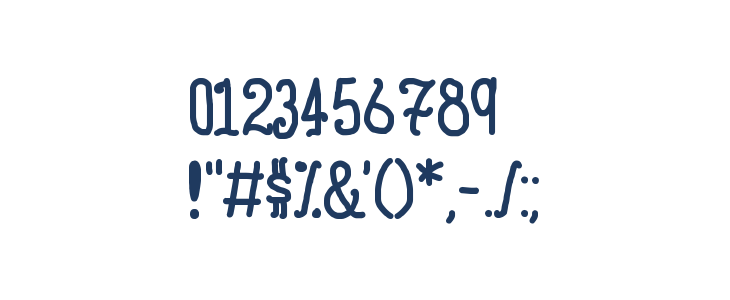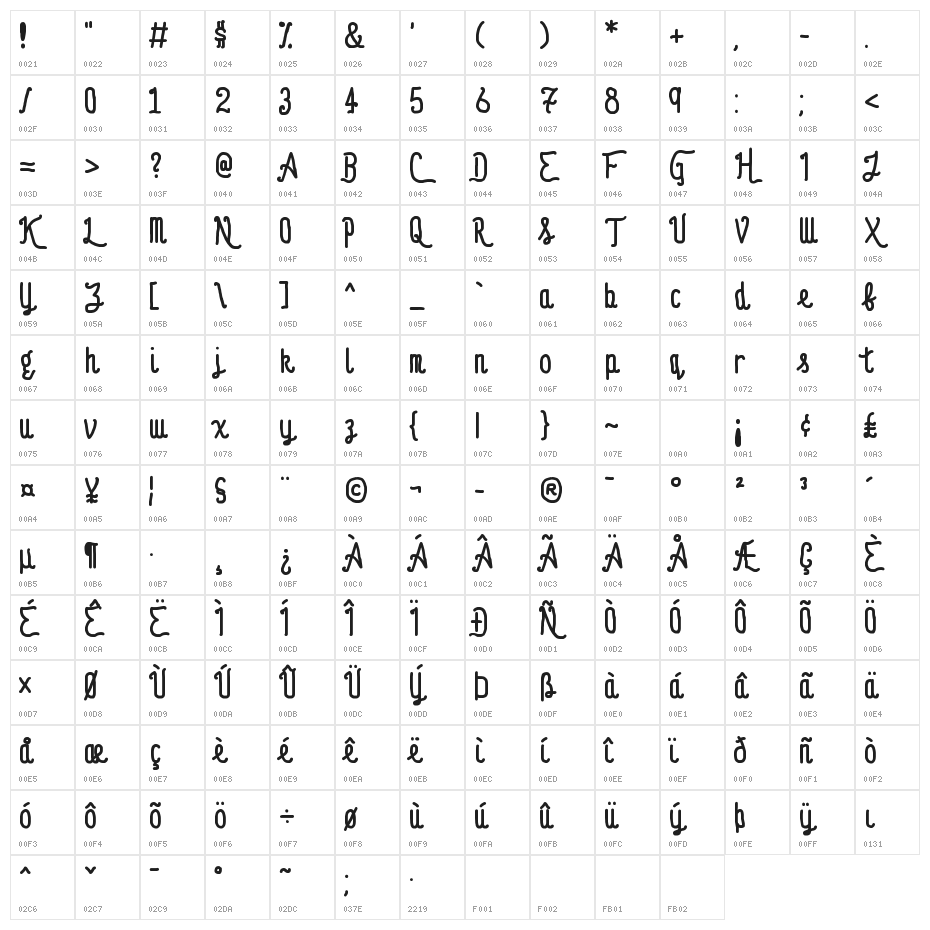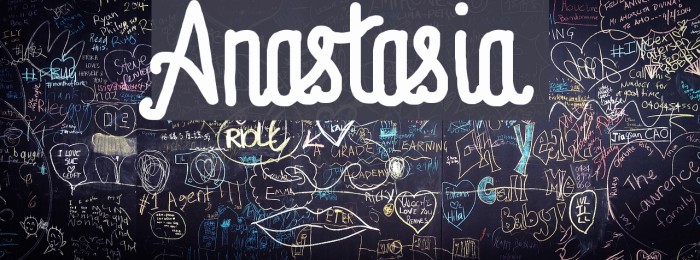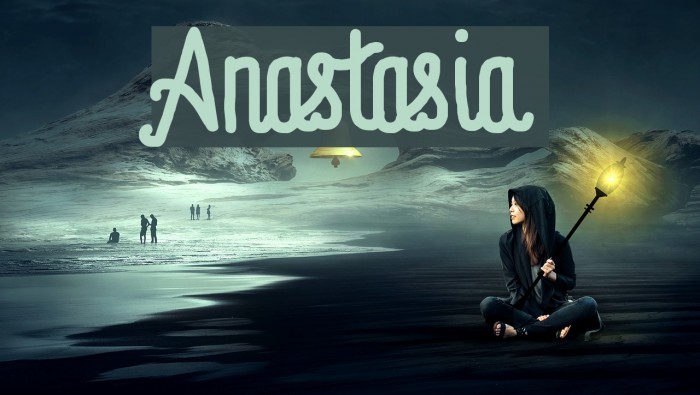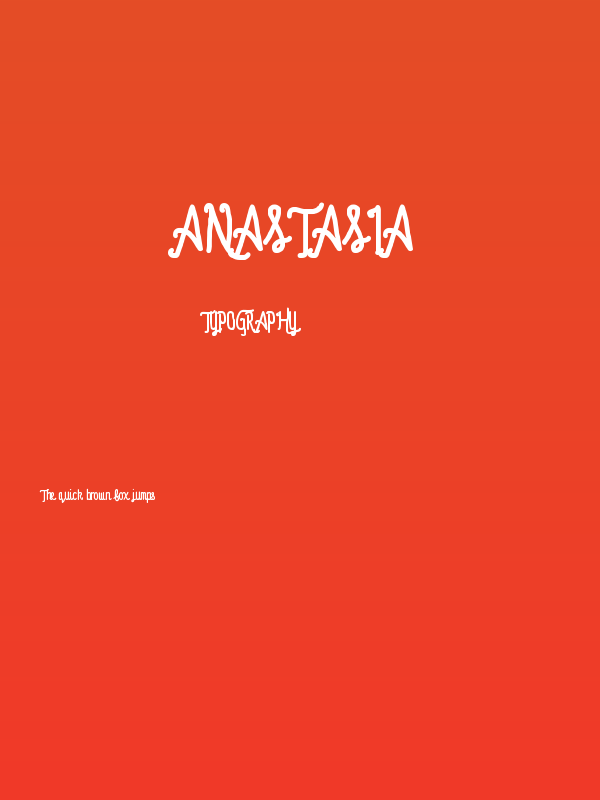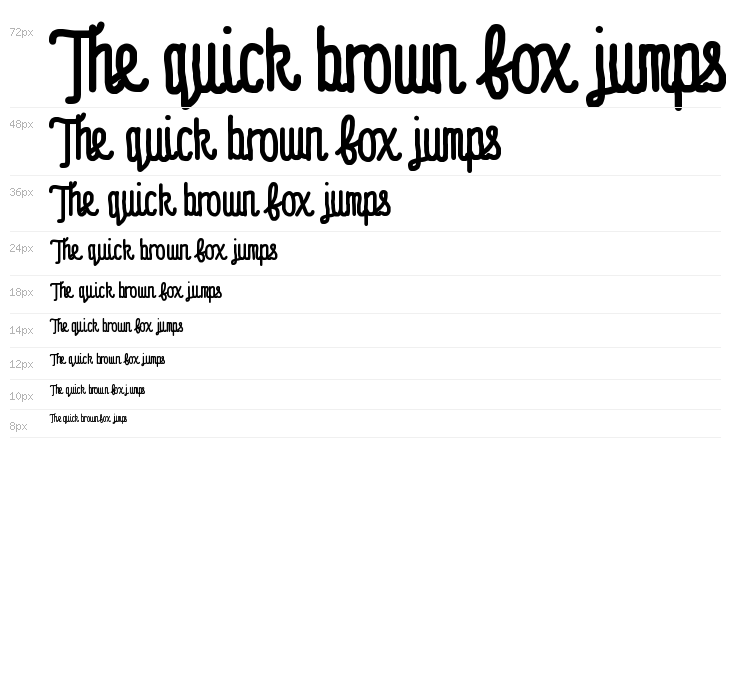
Anastasia Font
Anastasia Description
This font features a unique and playful script style with a hand-drawn appearance. The letters are interconnected with a flowing, cursive design that adds a whimsical touch. The uppercase letters are bold and prominent, while the lowercase letters maintain a consistent flow, enhancing readability. Numbers and special characters follow the same playful style, making the font versatile for creative projects. The overall design is both artistic and approachable, suitable for a variety of uses where a personal touch is desired.
| Proposed Projects | Ideal for greeting cards, invitations, children's books, and creative branding projects. |